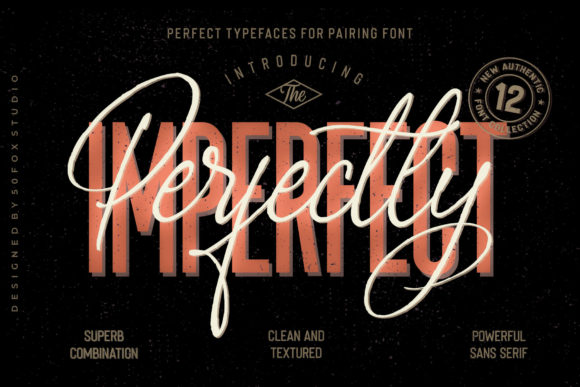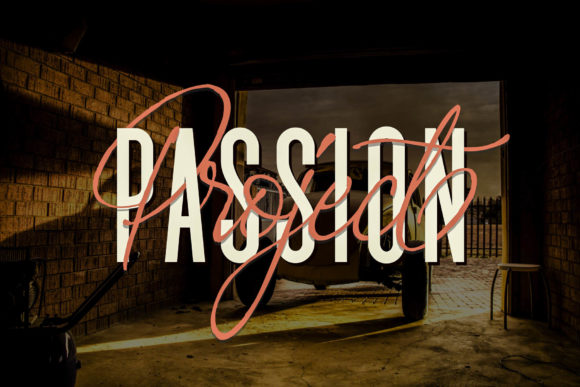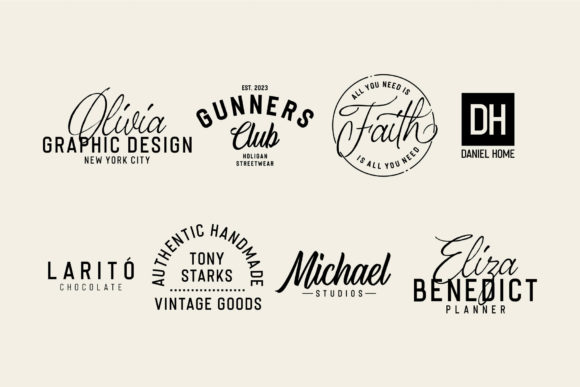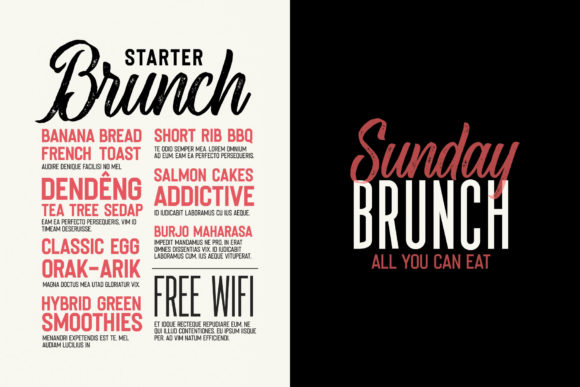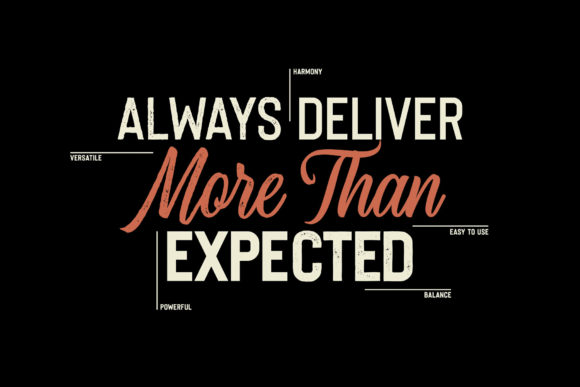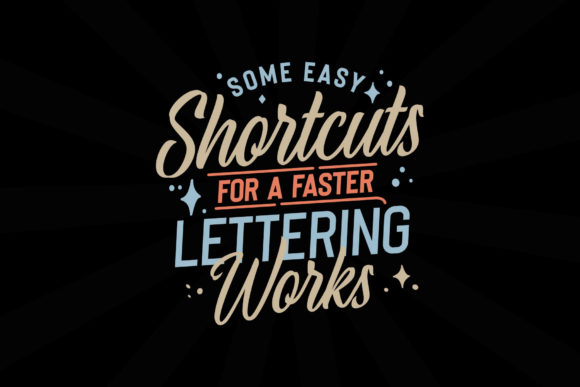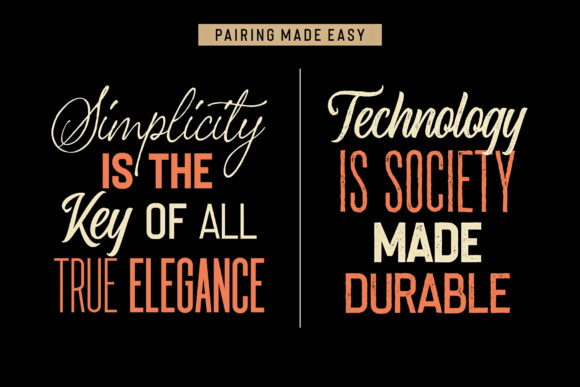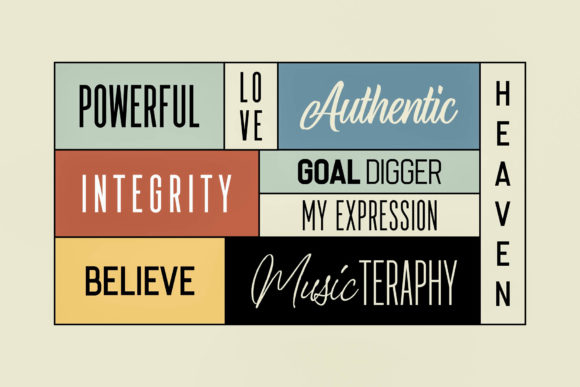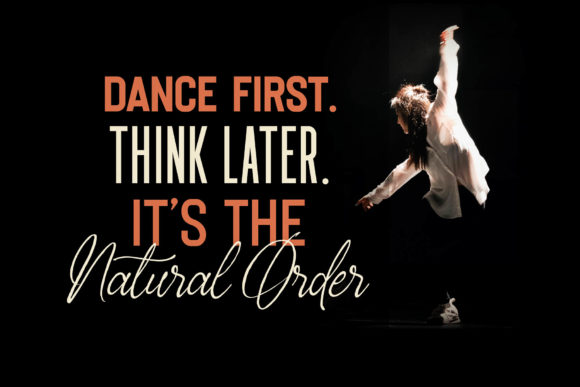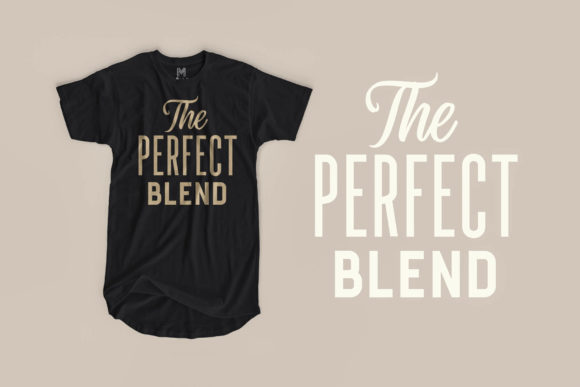
Perfectly Imperfect Family Font
About Perfectly Imperfect Family Font
Noboidy’s perfect. But this font family is near perfect: Perfectly Imperfect is a fun and beautiful font family!